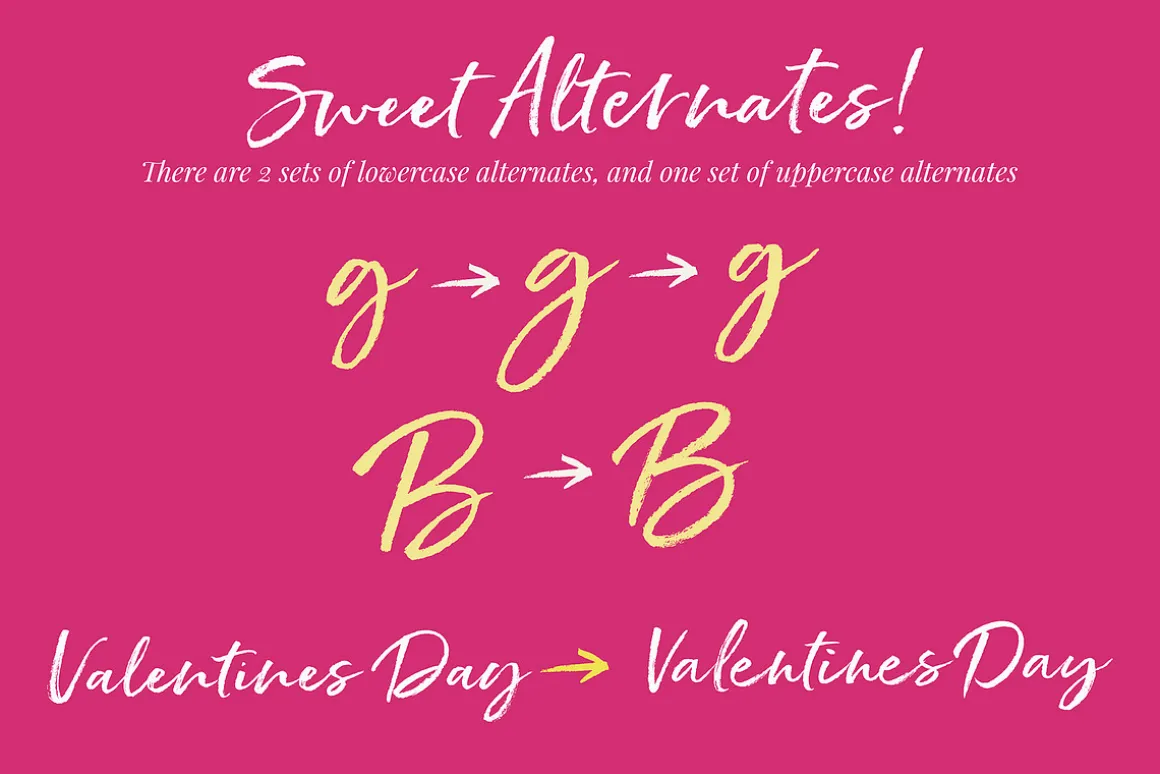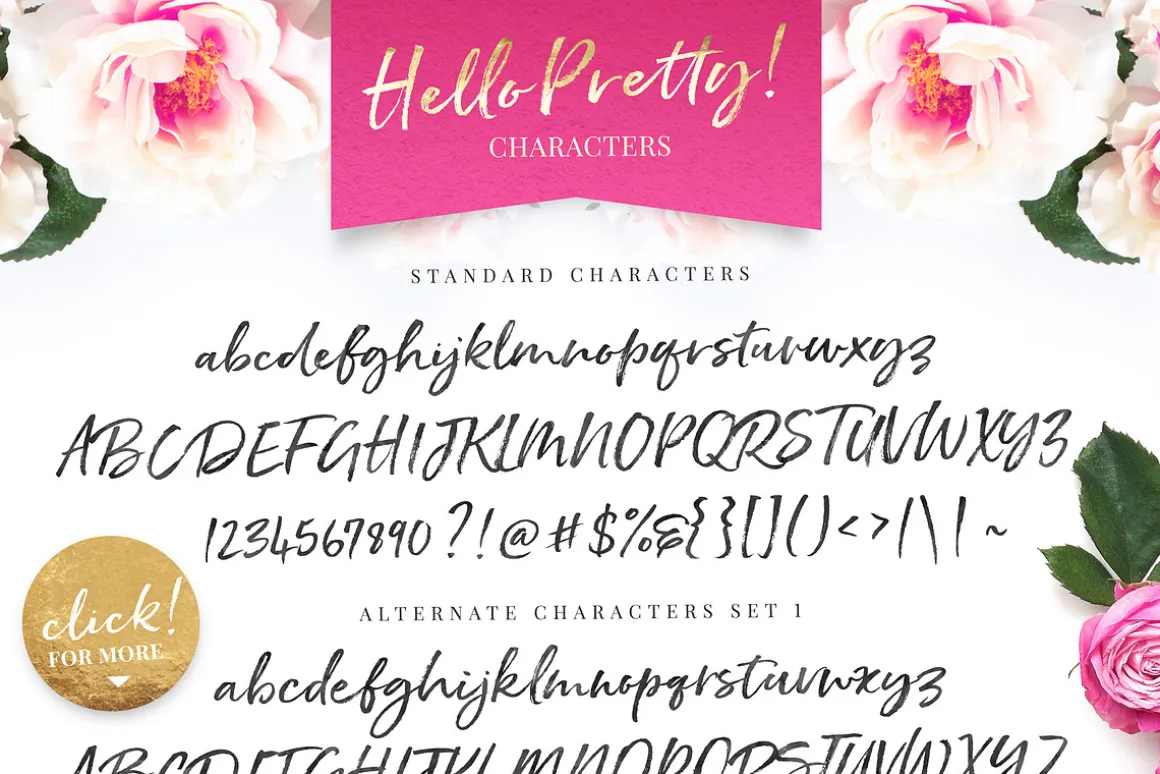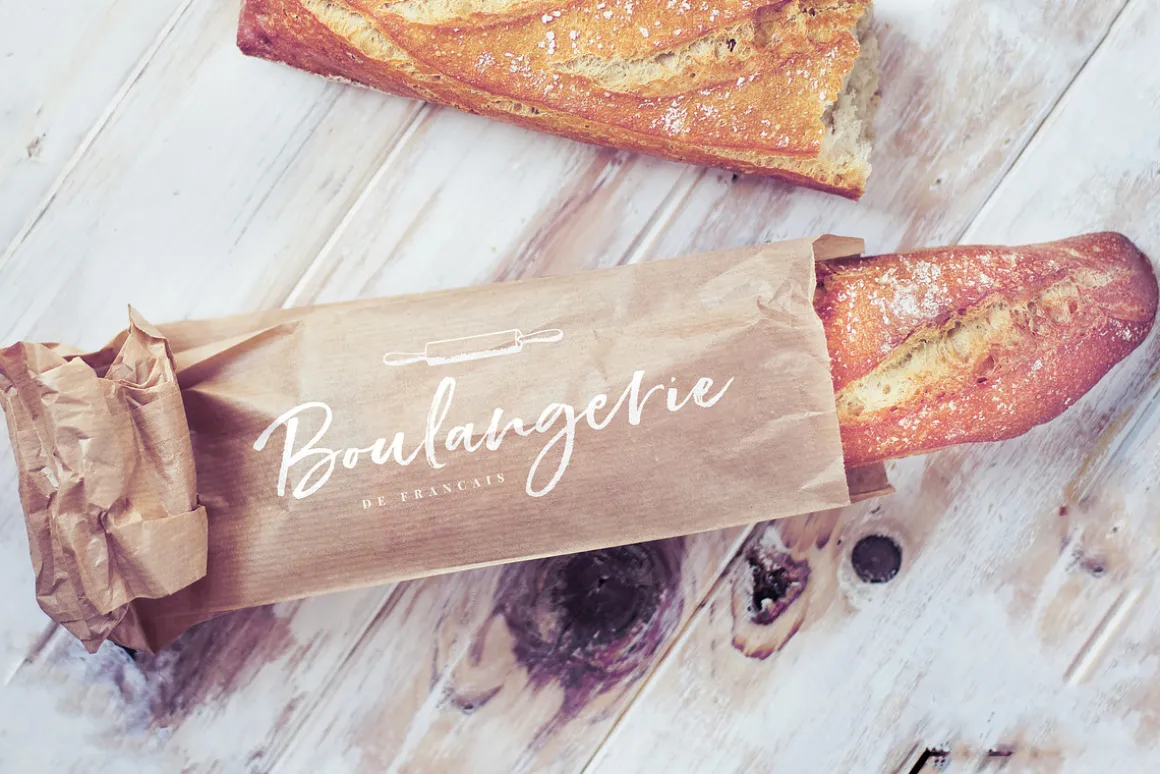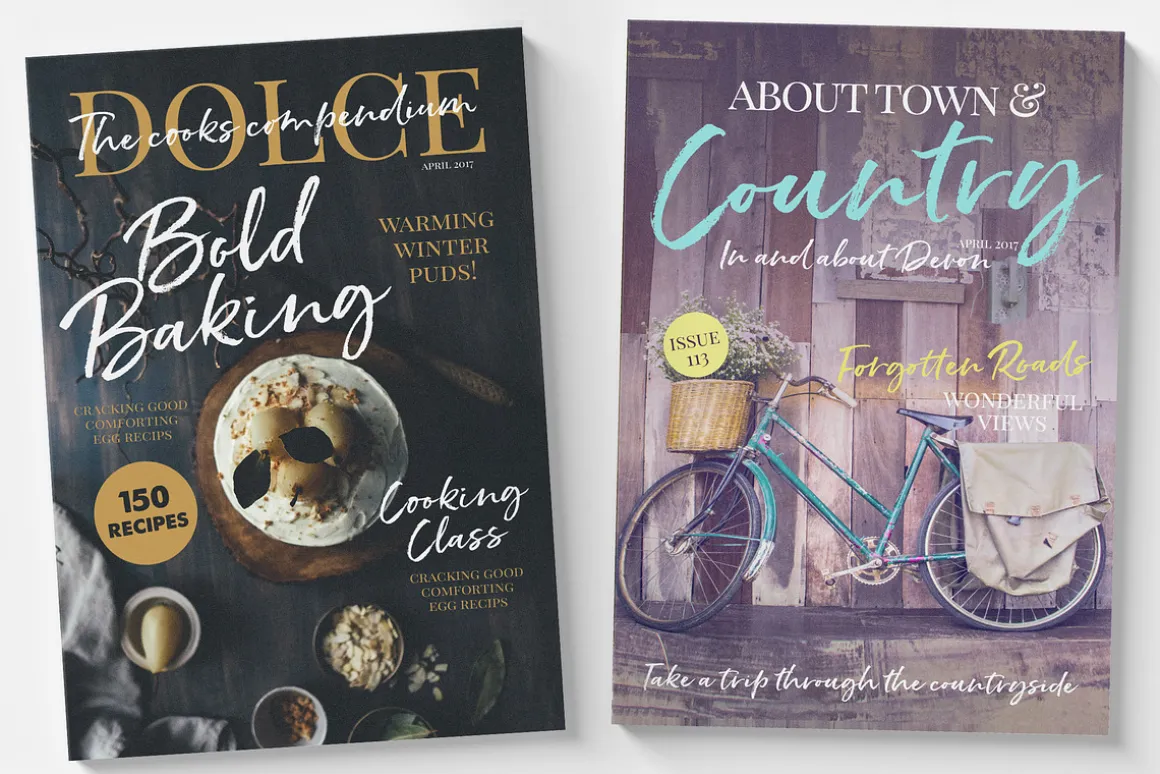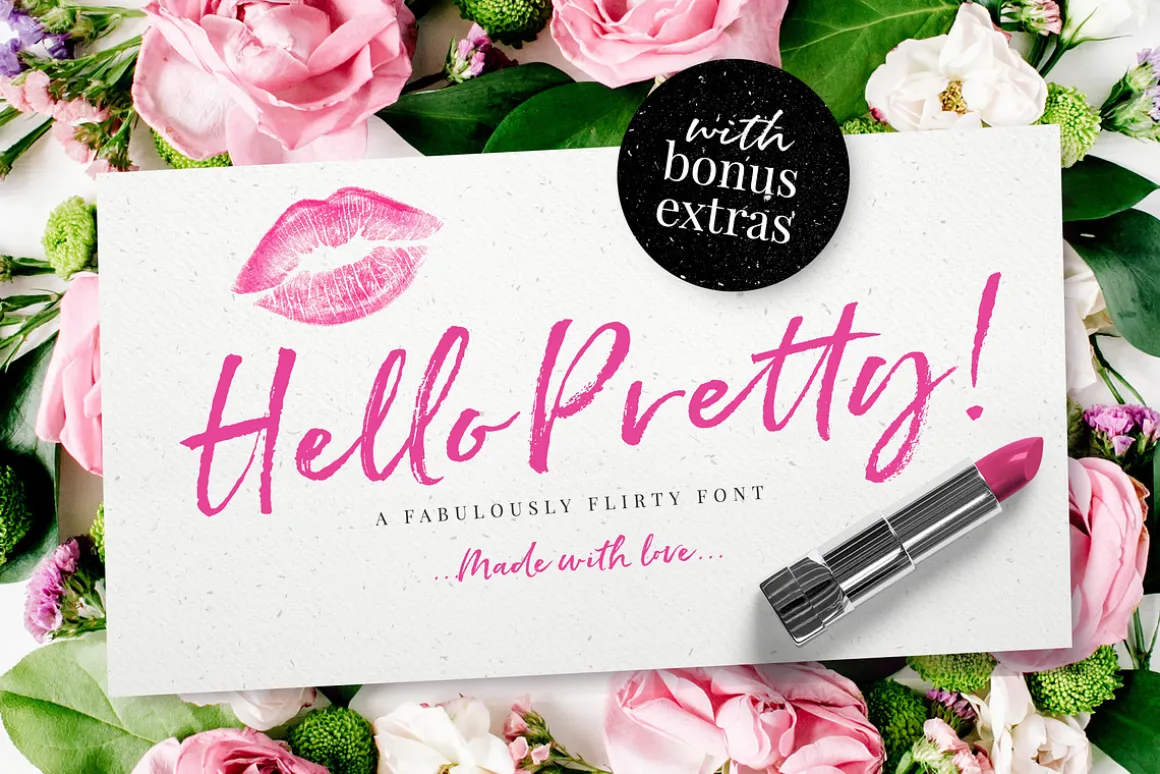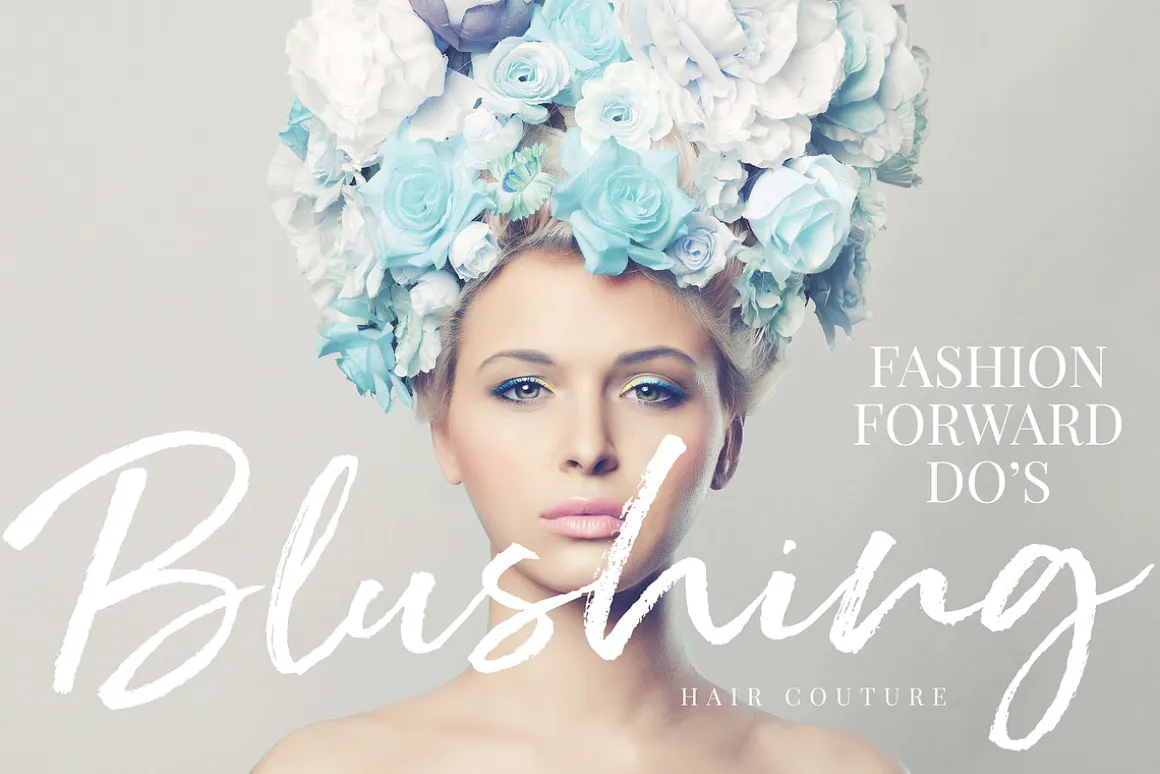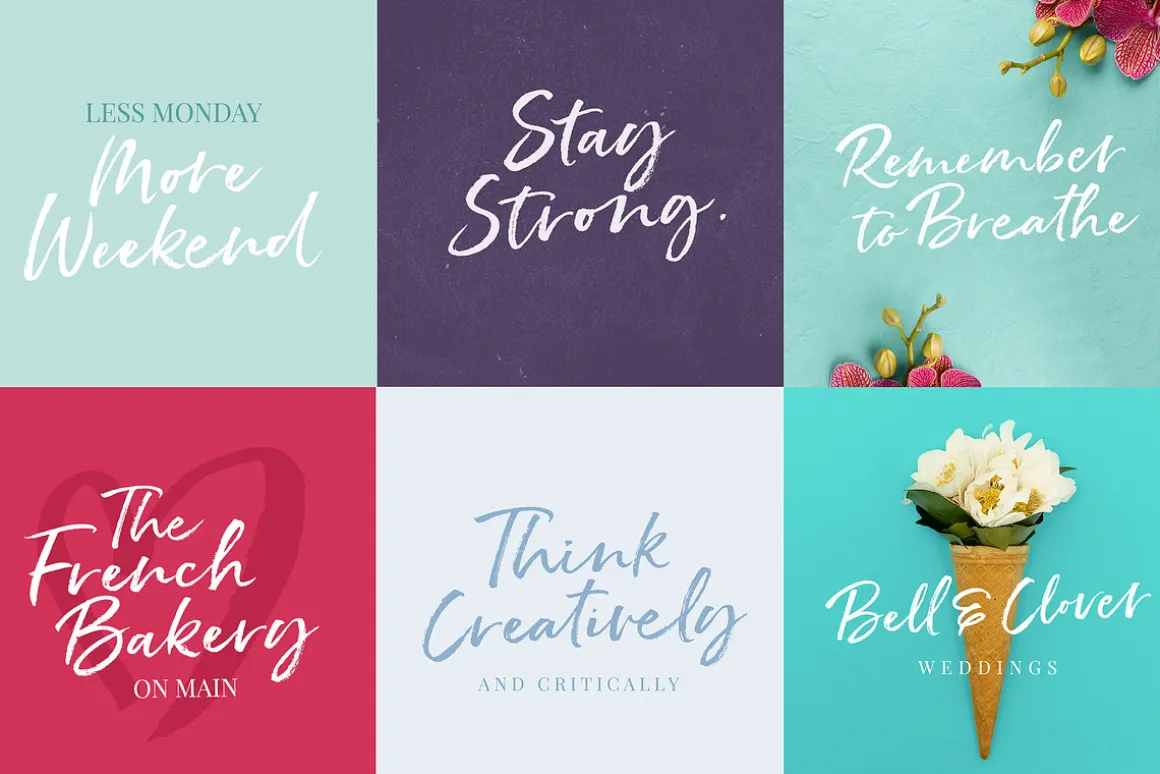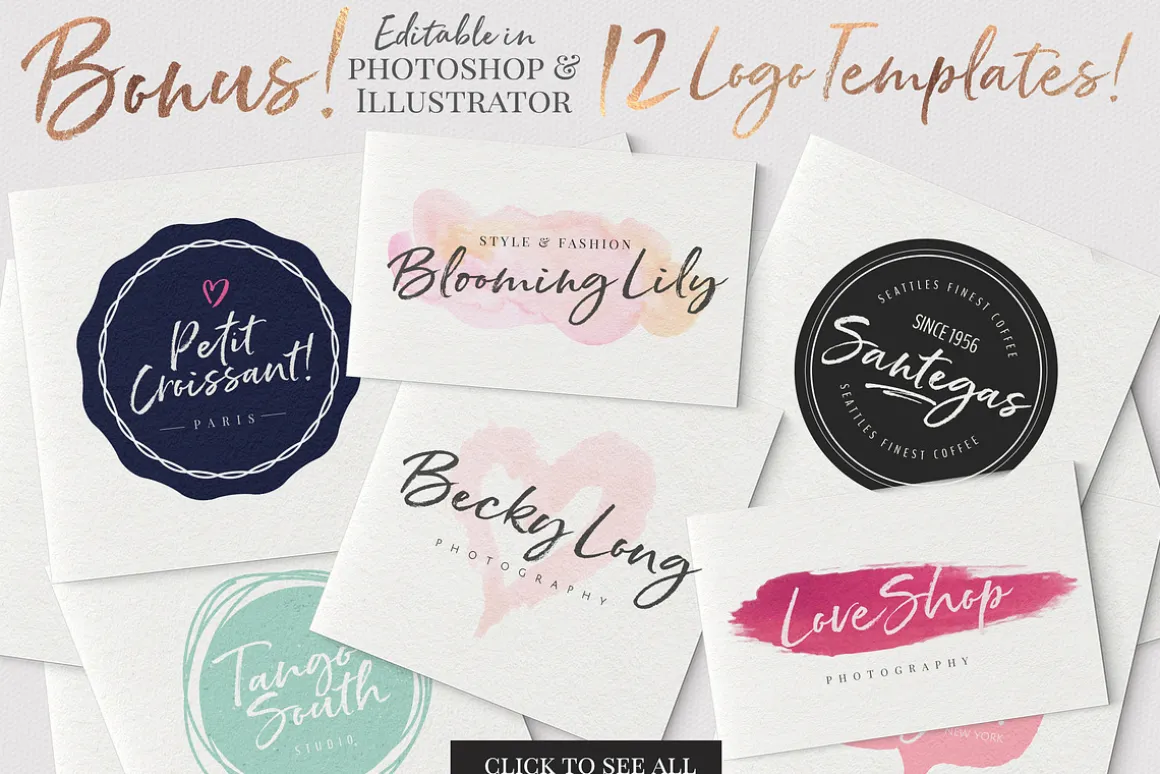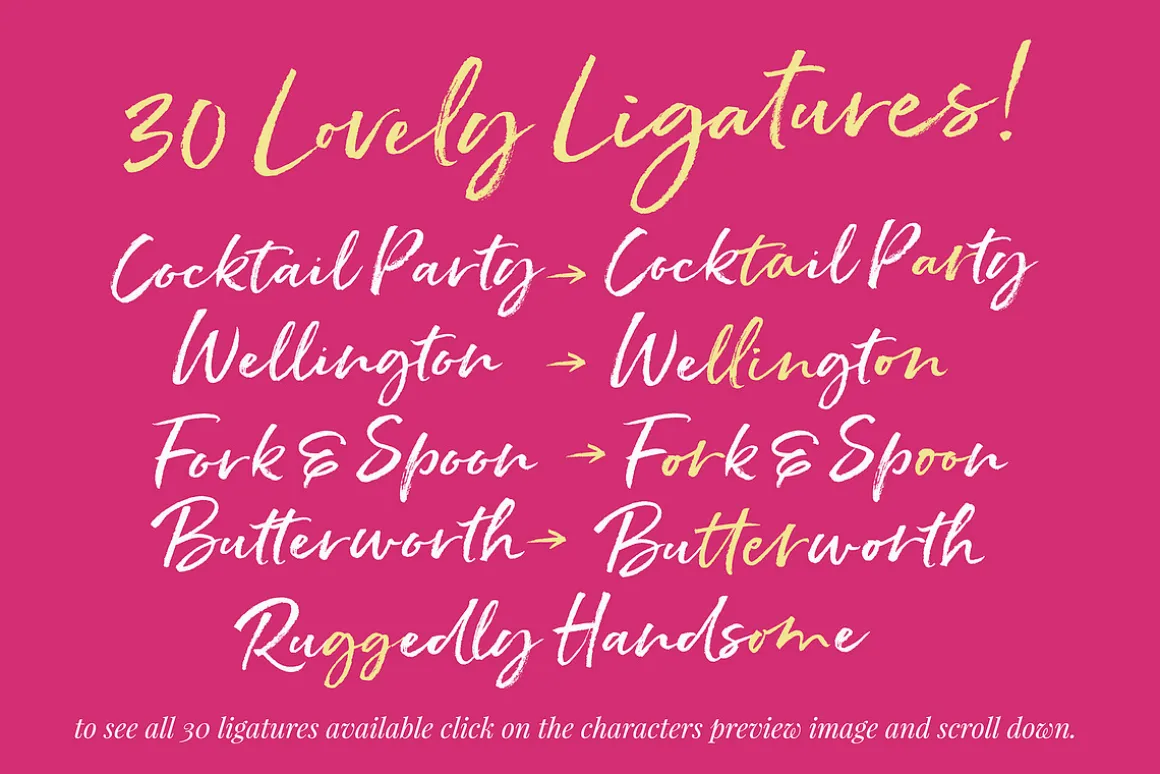
Say hello to Hello Pretty! A fresh and flirty brush font with oodles of style! AND 3 sweet little bonuses🙂
Hello Pretty is a hand brushed typeface, with authentic tell-tale dry brush imperfections, and oodles of alternate letters and ligatures – Perfect for adding a fresh, personal flair to your designs.
❤ALTERNATE LETTERS AND DOUBLE-LETTER LIGATURES ❤
Hello Pretty has a large variety of alternate characters ( 2 Sets of lowercase, and 1 set of uppercase) ,allowing you to make each word look completely unique to the next! Ligatures are also included – to bring true authenticity to your design. It has multilingual support with accented characters for international users.
12 VECTOR LOGO TEMPLATES – Hello Pretty comes with a bonus 12 Premade Logo templates if you need a little design inspiration for your branding 🙂 Click the preview above to see all the logos you receive – All vector based, including the watercolours , and editable in Photoshop or Illustrator.
Hello Pretty also comes with a bonus DINGBAT font with 62 handy doodles elements for your designs 🙂
Hello Pretty is perfect for using in your branding, weddings, logos, business cards, merchandise, greeting cards, posters, magazines, social media and websites.